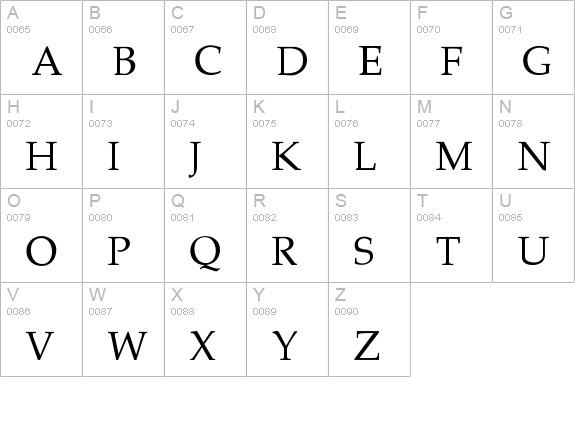
PalladiaRoman font is a timeless and elegant typeface that exudes sophistication and class. With its graceful curves and perfectly balanced letterforms, this font is sure to make a lasting impression on any design project. What sets PalladiaRoman font apart is not only its beauty, but also its accessibility. This font is a rare gem as it is freely available to download at FontsMarket.com. This means that anyone can add a touch of elegance to their work without breaking the bank. Whether you're designing a wedding invitation, creating a logo for a luxury brand, or simply adding a touch of refinement to a presentation, PalladiaRoman font is the perfect choice. Its versatility and charm make it suitable for a wide range of projects. The attention to detail in PalladiaRoman font is truly remarkable. Every stroke and curve is carefully crafted to create a harmonious and visually pleasing typeface. The result is a font that is both captivating and legible, making it a joy to work with. PalladiaRoman font is a testament to the power of typography in design. It effortlessly combines tradition and modernity, making it a timeless choice for any project. Whether you're a professional designer or a novice, this font will elevate your work to new heights. So why wait? Experience the beauty and versatility of PalladiaRoman font today. Head over to FontsMarket.com and download this stunning font for free. Let PalladiaRoman font be your secret weapon in creating designs that are both elegant and impactful.